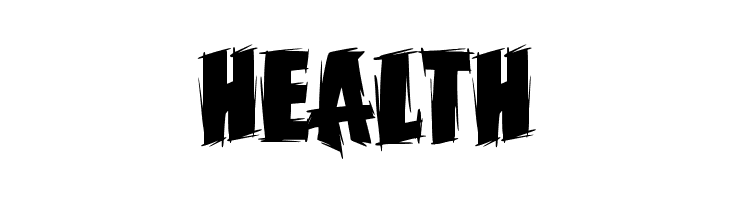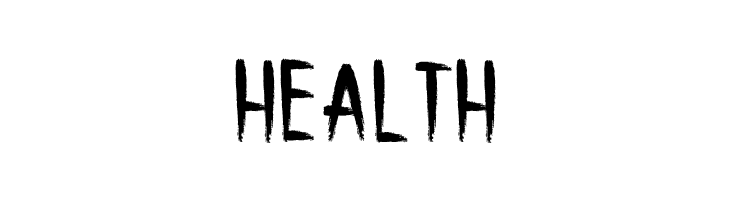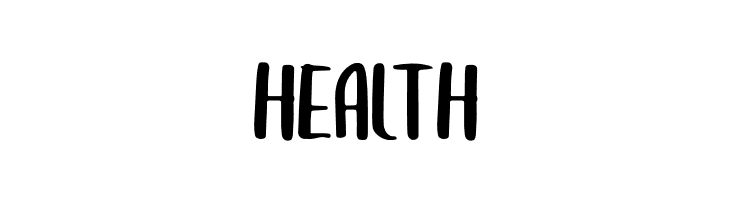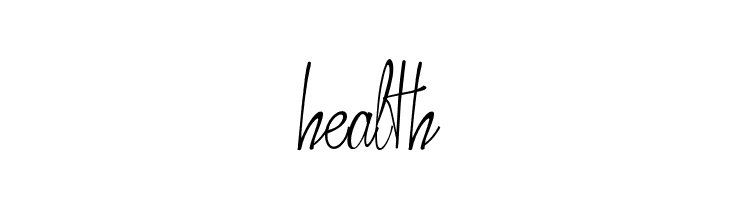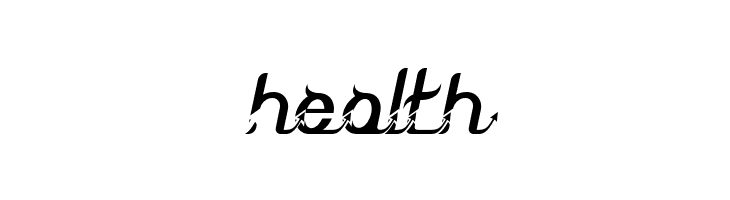
A lively and elegant script font with fluid, connected letterforms.
A bold, expressive handwritten font with dynamic strokes and artistic flair.
A dynamic script font with fluid, interconnected strokes and an expressive style.
A bold, jagged, and distressed font with a rugged appearance.
A hand-drawn, chalk-like font with textured, dynamic strokes.
A bold, playful handwritten font with rounded edges and a whimsical touch.
A bold, brush-style font with dynamic and expressive strokes.
A cursive, handwritten-style font with elegant, flowing characters.
A graceful handwritten script font with elegant, flowing letterforms.
A dynamic and elegant italic font with flowing curves and interconnected letters.